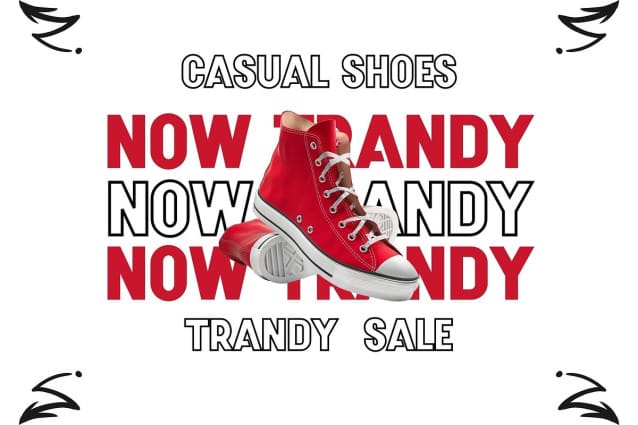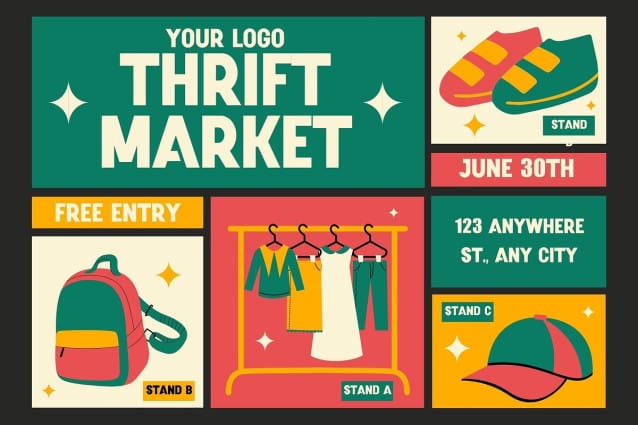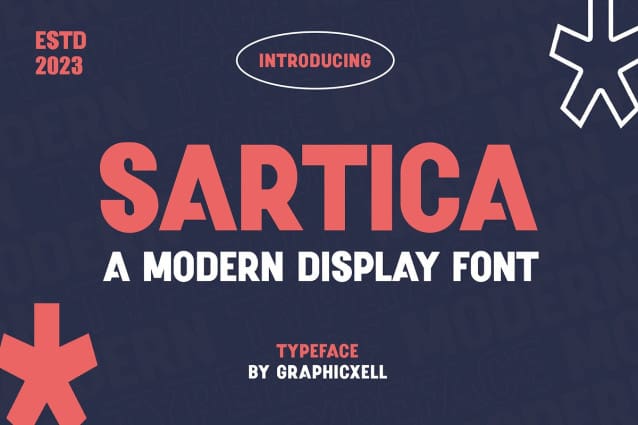
Sartica Font
Sartica Font – Display Sans Serif Font inspired by the famous minimalist logo perfect for the purposes of designing templates, brochures, videos, advertising branding, logos, invitation, layout design, elegant crafting, beauty design and more.